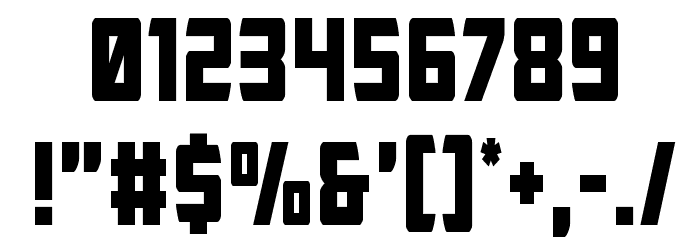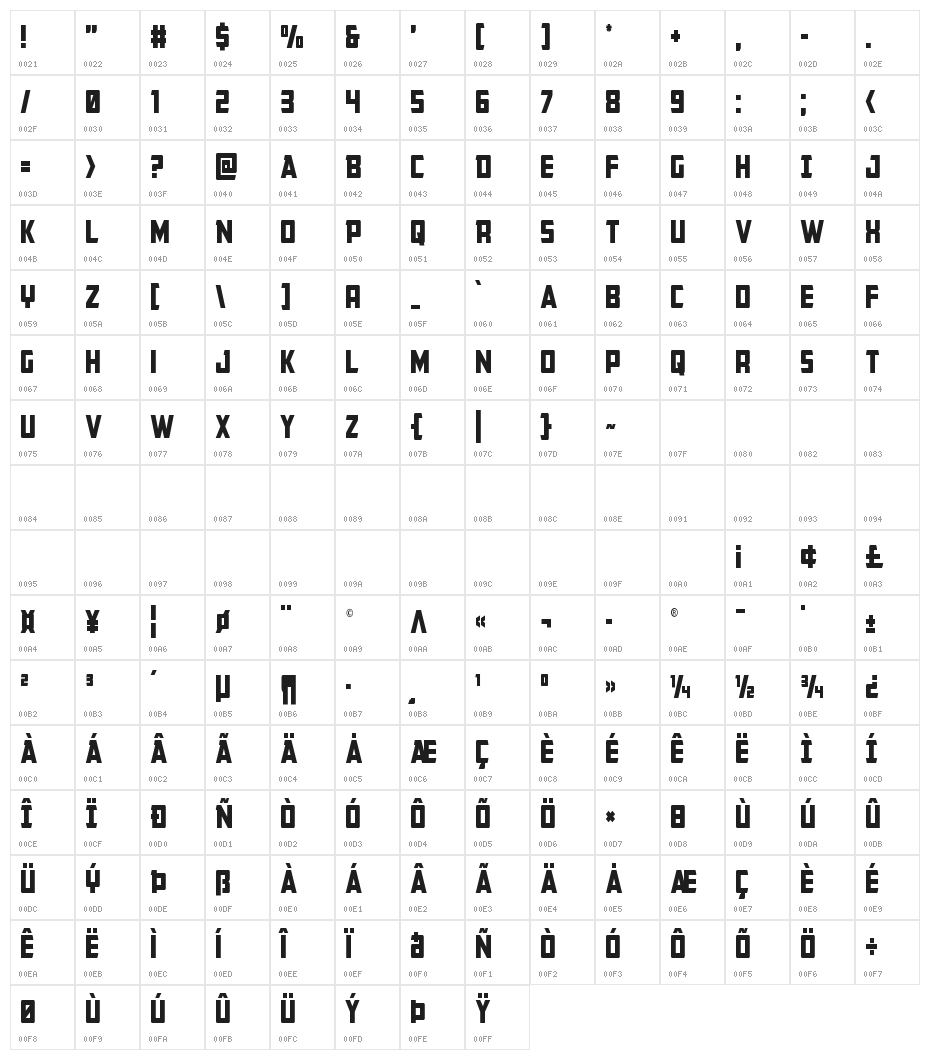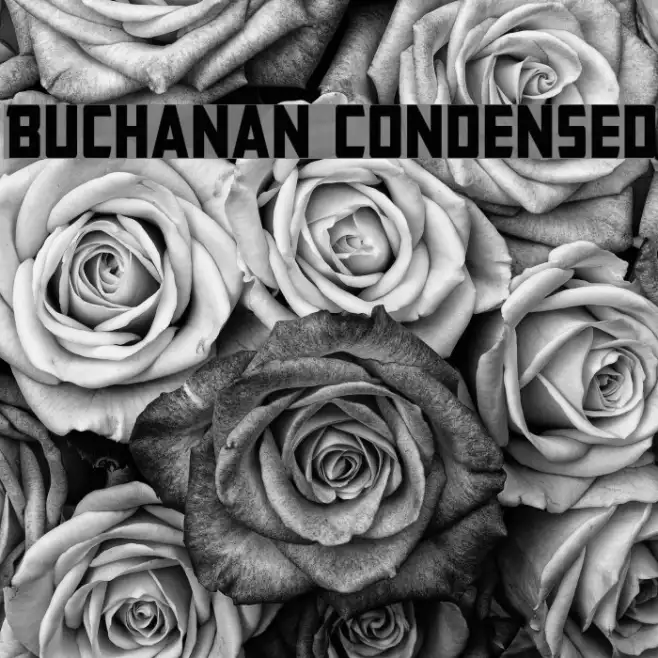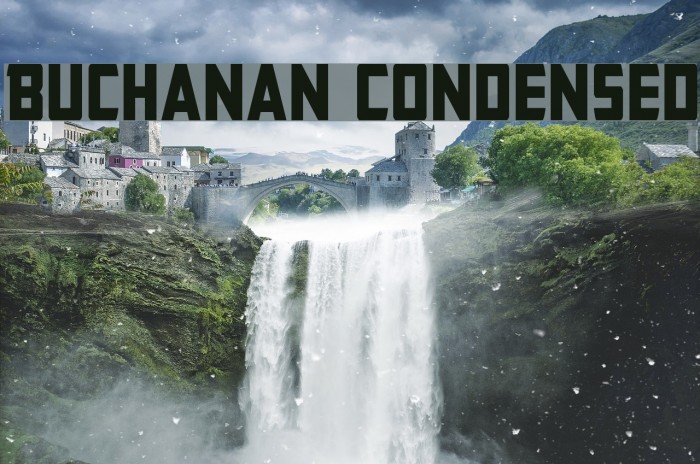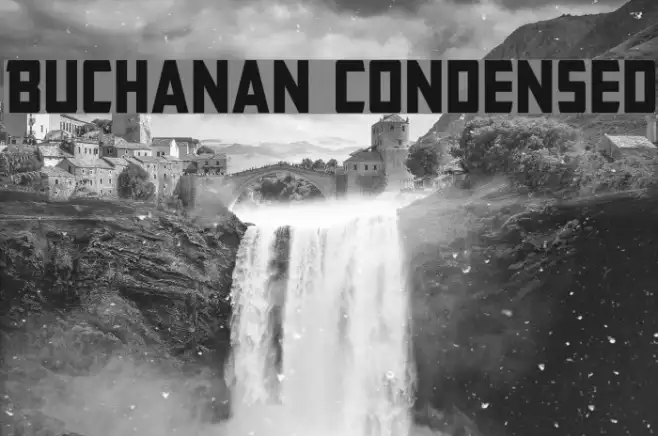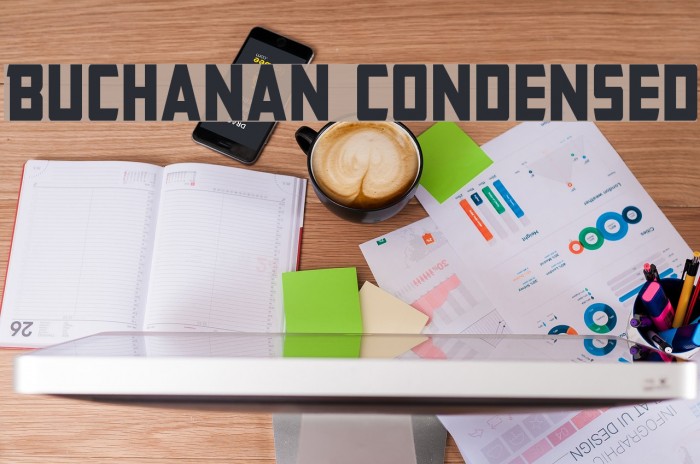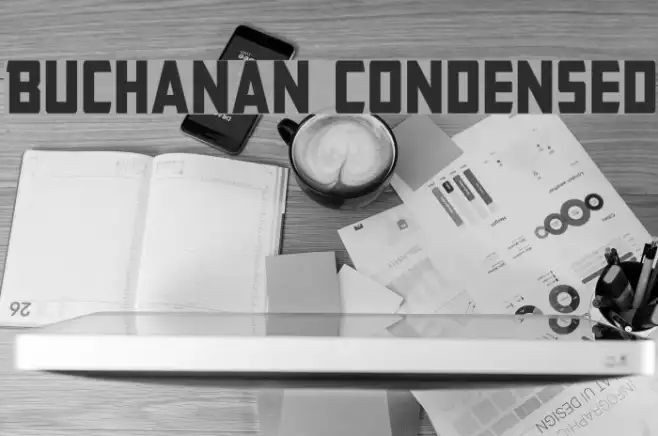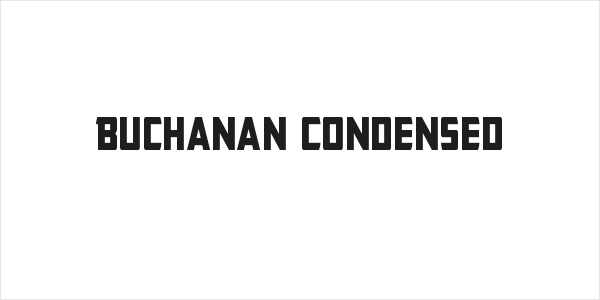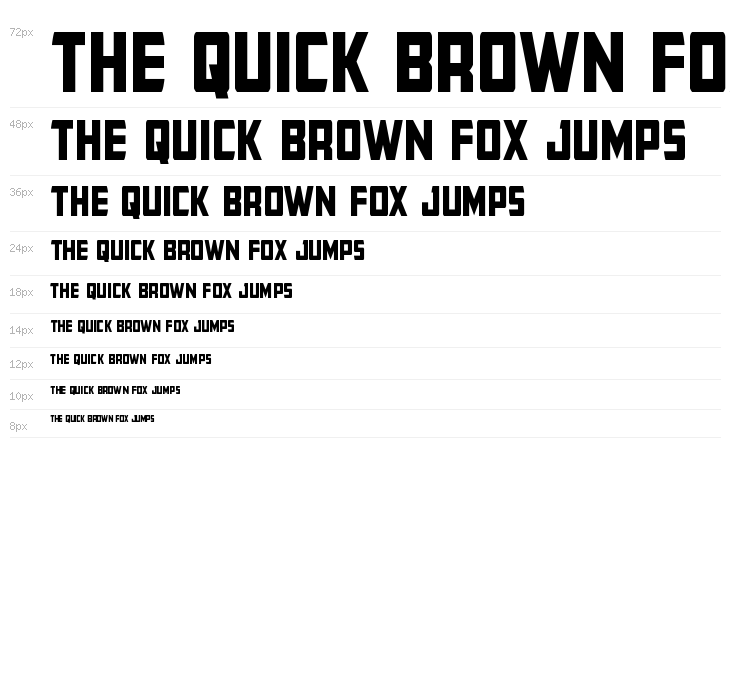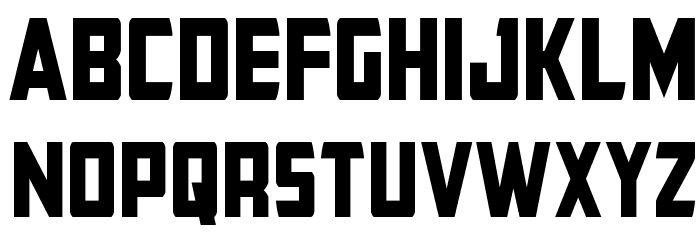
Buchanan Condensed Font
Buchanan Condensed Description
This font features a bold, condensed style with strong geometric shapes and a robust presence. The uppercase letters are uniform in height, creating a cohesive and structured appearance. The characters have a blocky, angular design with minimal curves, emphasizing a modern and industrial aesthetic. The numbers and special characters maintain the same boldness and geometric style, ensuring consistency across all glyphs. This font's design is ideal for making a strong visual impact, with its thick strokes and tight spacing contributing to its commanding presence.